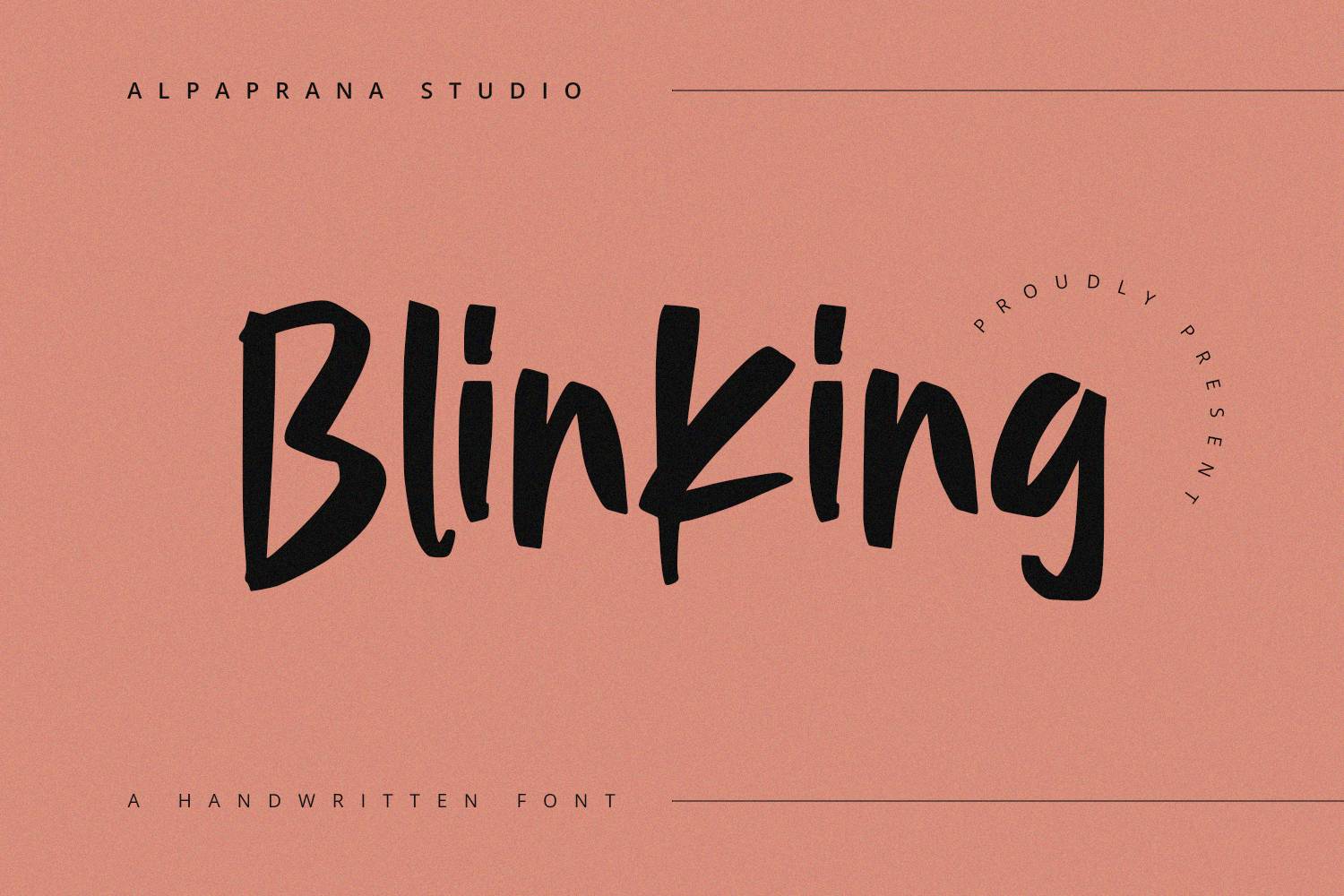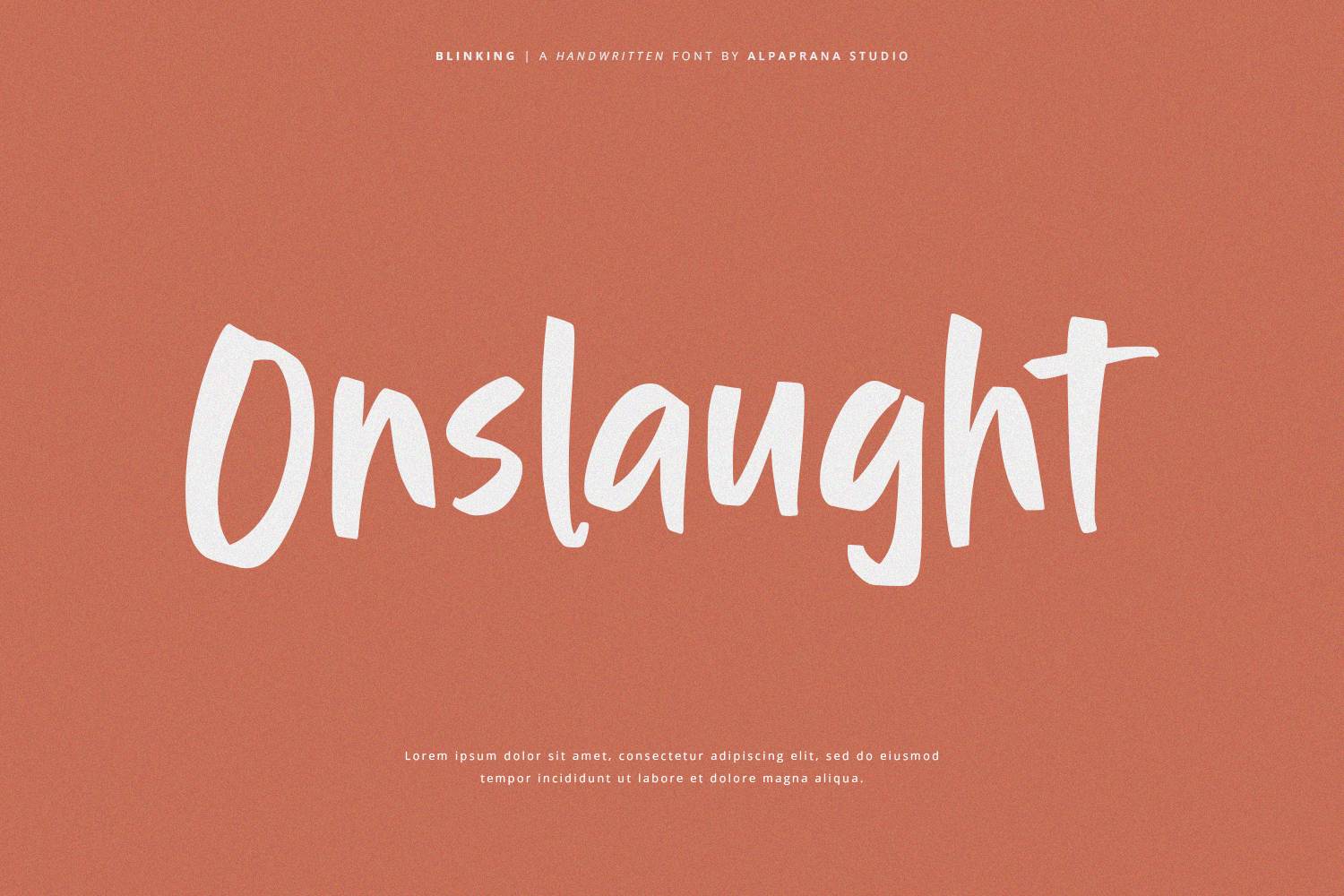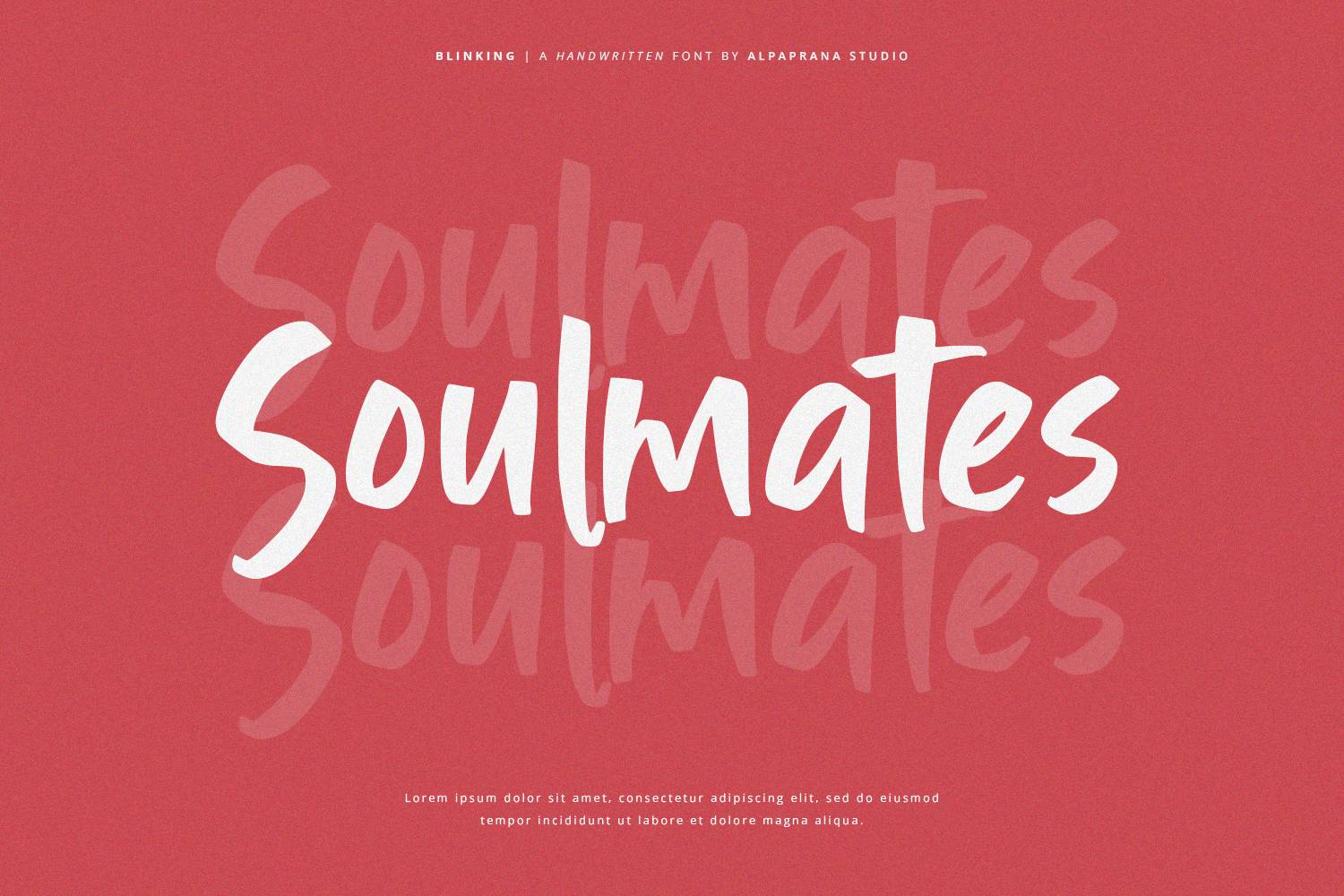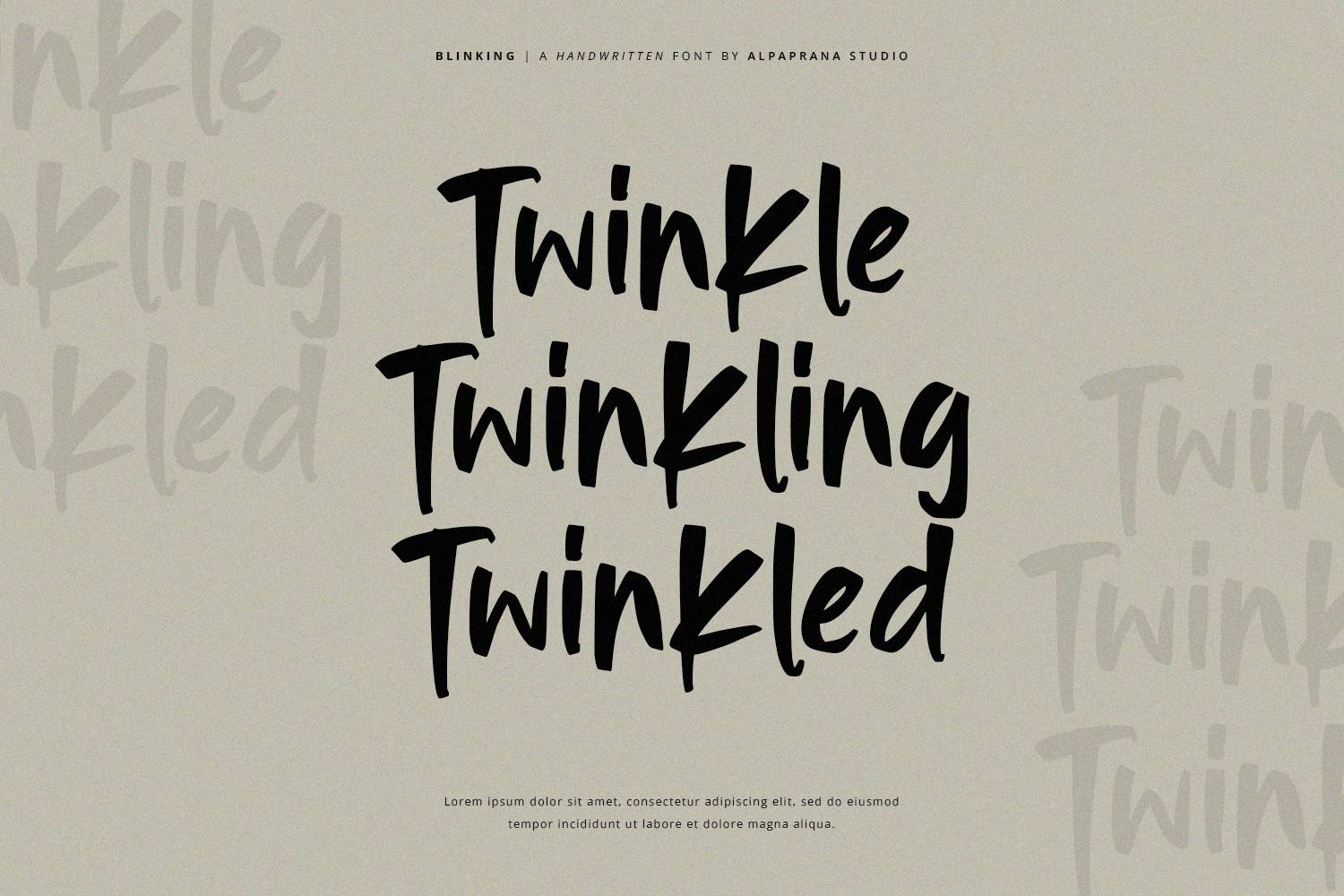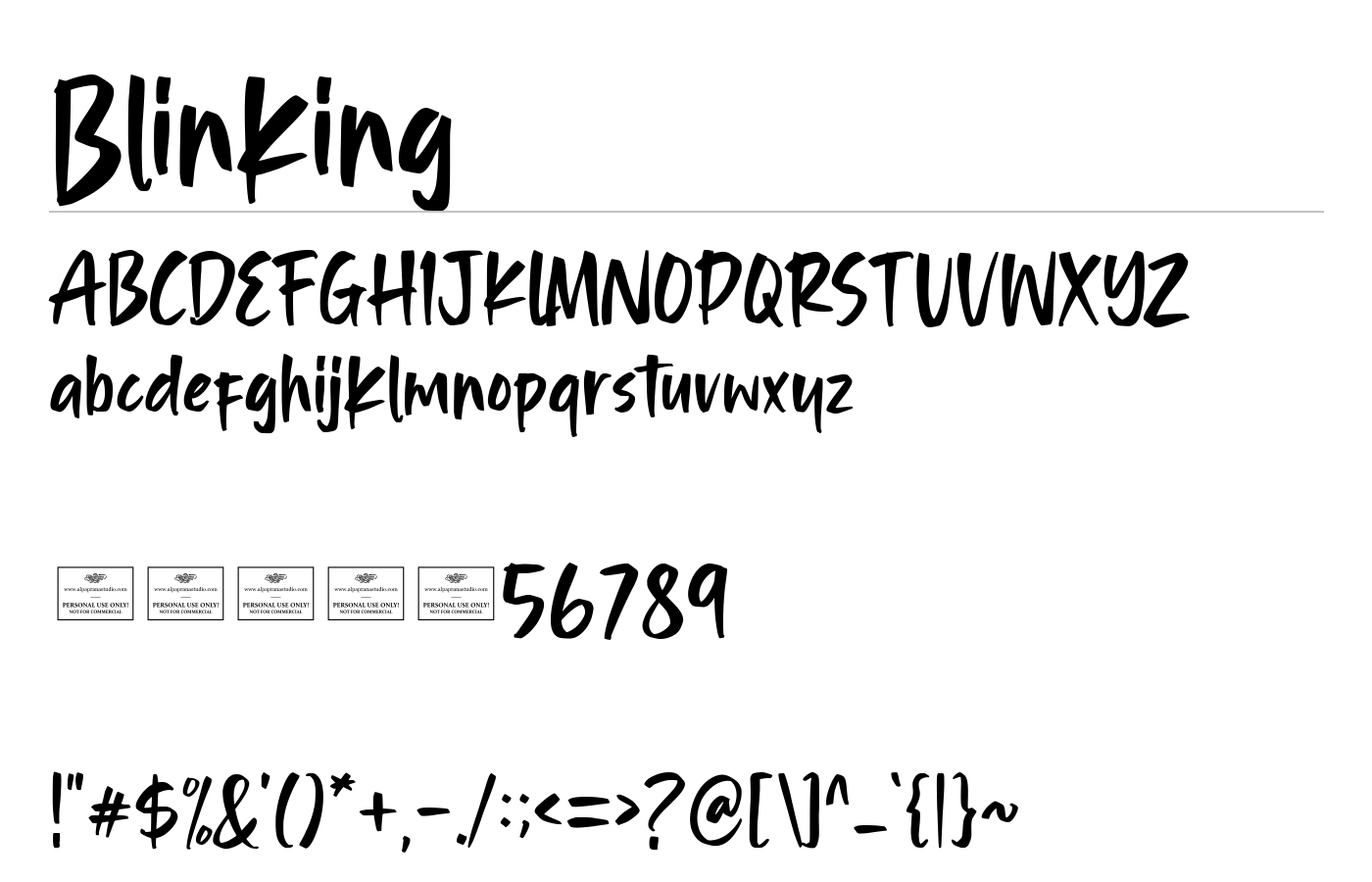
Blinking Font is a lively and informal handwritten sans serif typeface with a playful, casual vibe. It features medium weight strokes with slight variations, a moderately tall x-height, and unique letterforms that convey a friendly and approachable personality, making it ideal for creative, youthful branding, posters, and casual editorial layouts. Its energetic style works best where a personal, hand-crafted feel is desired to engage audiences with warmth and spontaneity.
Blinking Font
About Blinking Font
| Font family | Blinking Font |